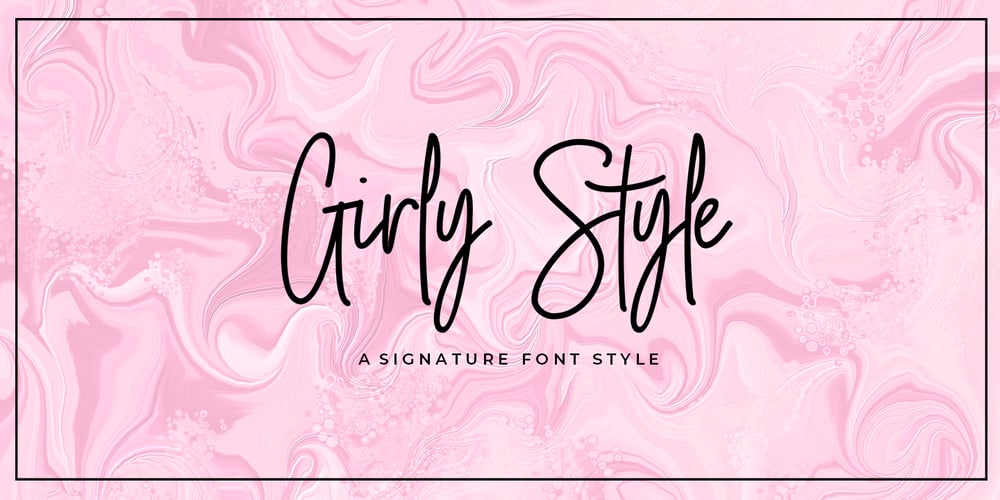
Girly Style Font Family was designed by Ak Mal and published by Akrtype Studio. Girly Style contains 1 styles and family package options. Girly Style is a beautiful and simple handwriting script font, contemporary and fashionable, Girly Style looks elegant for a wide variety of designs. This elegant font can be read and looks good as a title or body text. This font will be perfect for many different designs for magazine headlines, social media, branding, wedding invitations, cards, etc. Girly Style fonts include ligatures, capital letters and alternate letters. You need a program that supports OpenType features like Adobe Illustrator CS, Adobe Photoshop CC, Adobe Indesign and Corel Draw X6 / X7. and you can also access alternative flying machines via Font Book (Mac users) or Windows Character Map (Windows users).